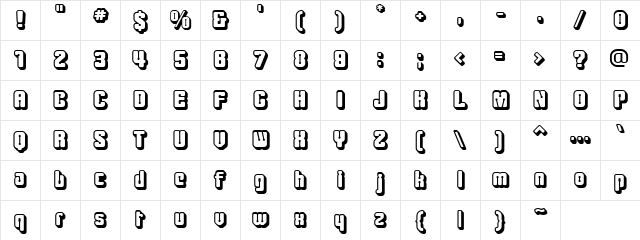
Fascuny Night shadow Regular
Design Context for Fascuny Night shadow Typeface
Fascuny Night shadow is built around its visual character rather than neutral utility — its distinctive forms are designed to make an impression at display sizes.
Font Pairing: Pair with a clean neutral sans-serif for body copy to let Fascuny Night shadow's character lead without overwhelming the composition.
Pro Tip: Treat Fascuny Night shadow as the centrepiece of your typographic hierarchy. One strong heading set in a decorative face can carry an entire layout.